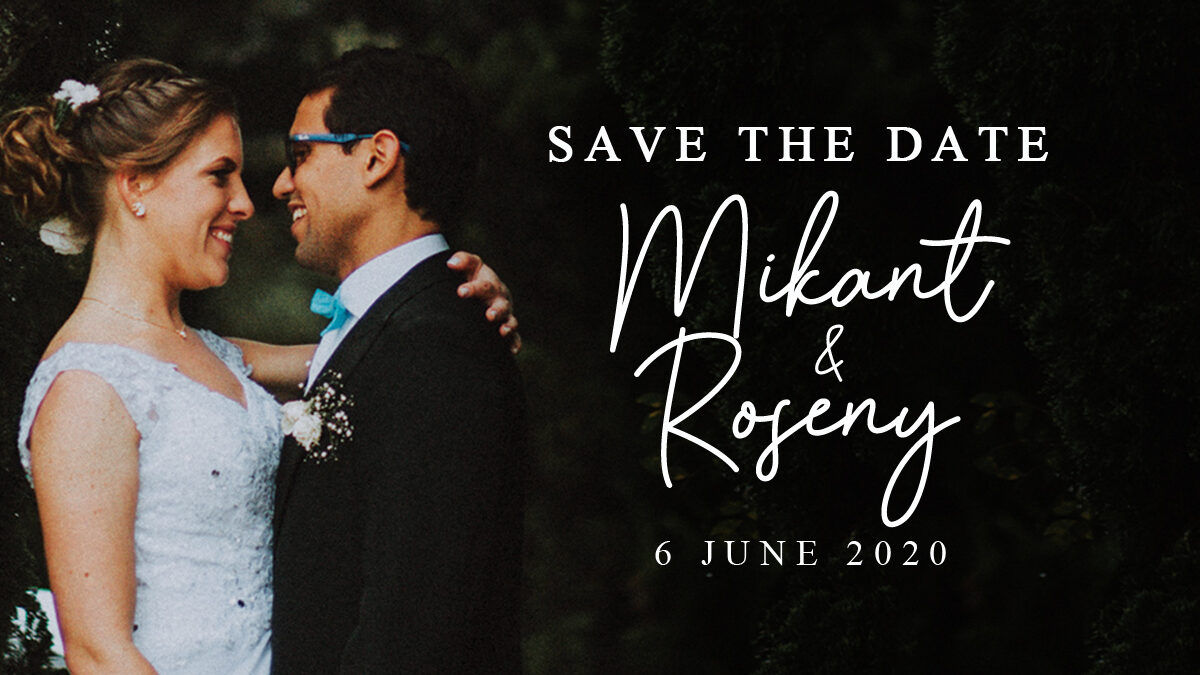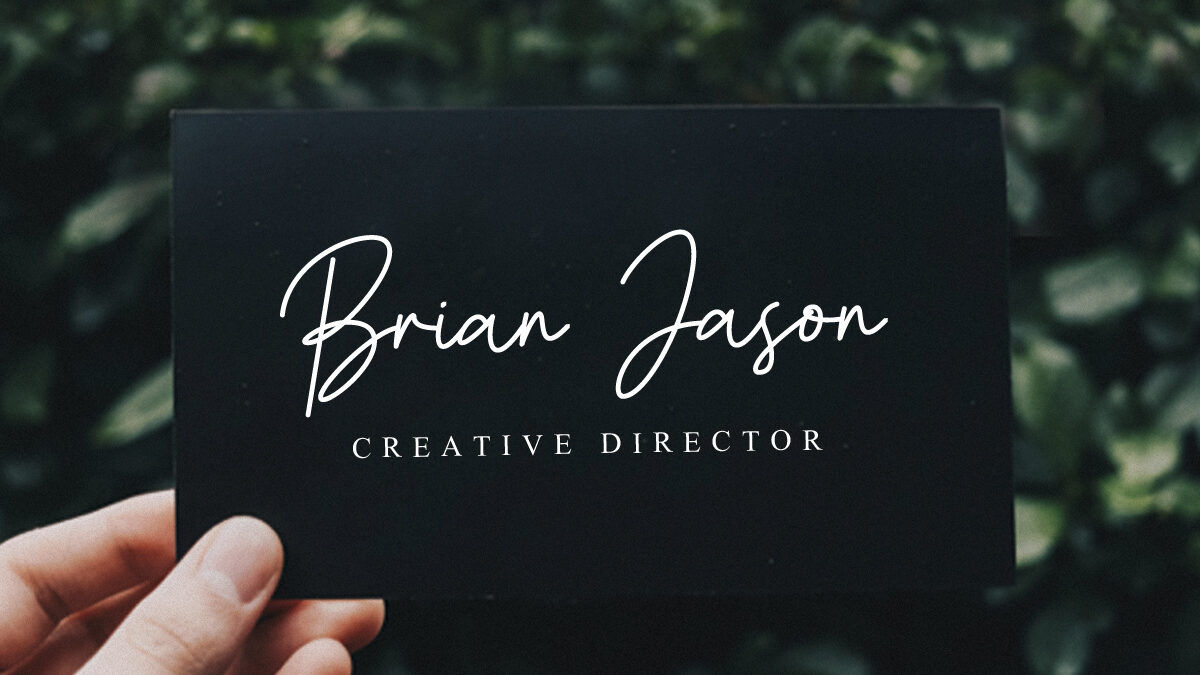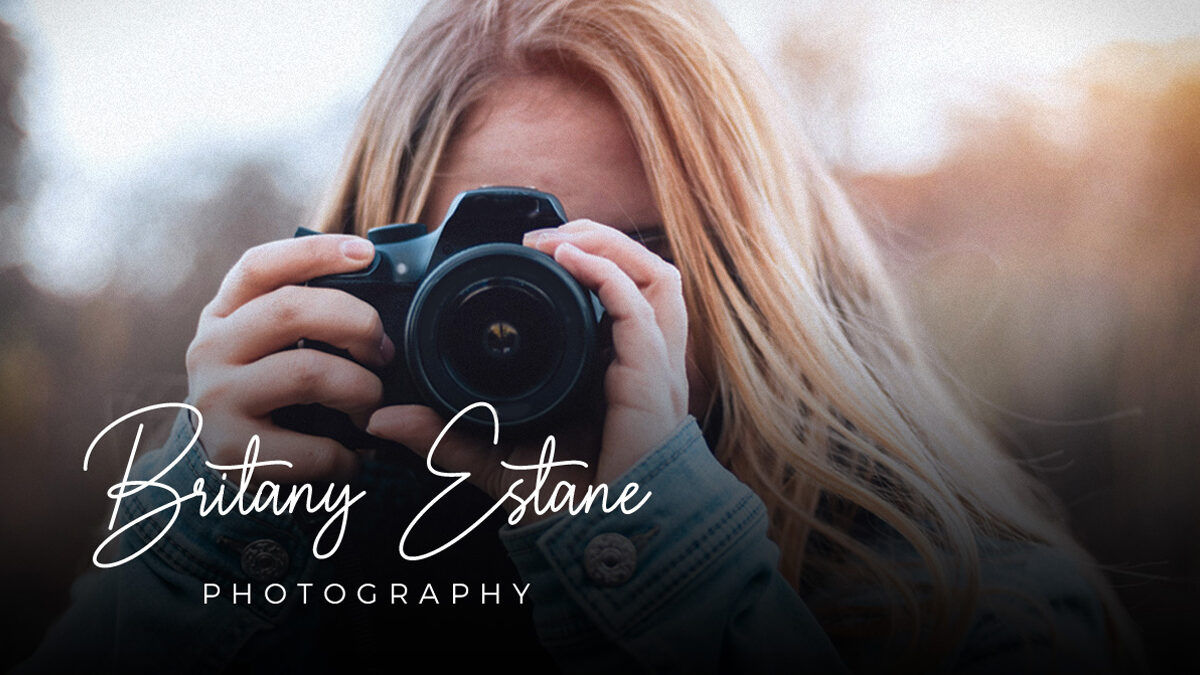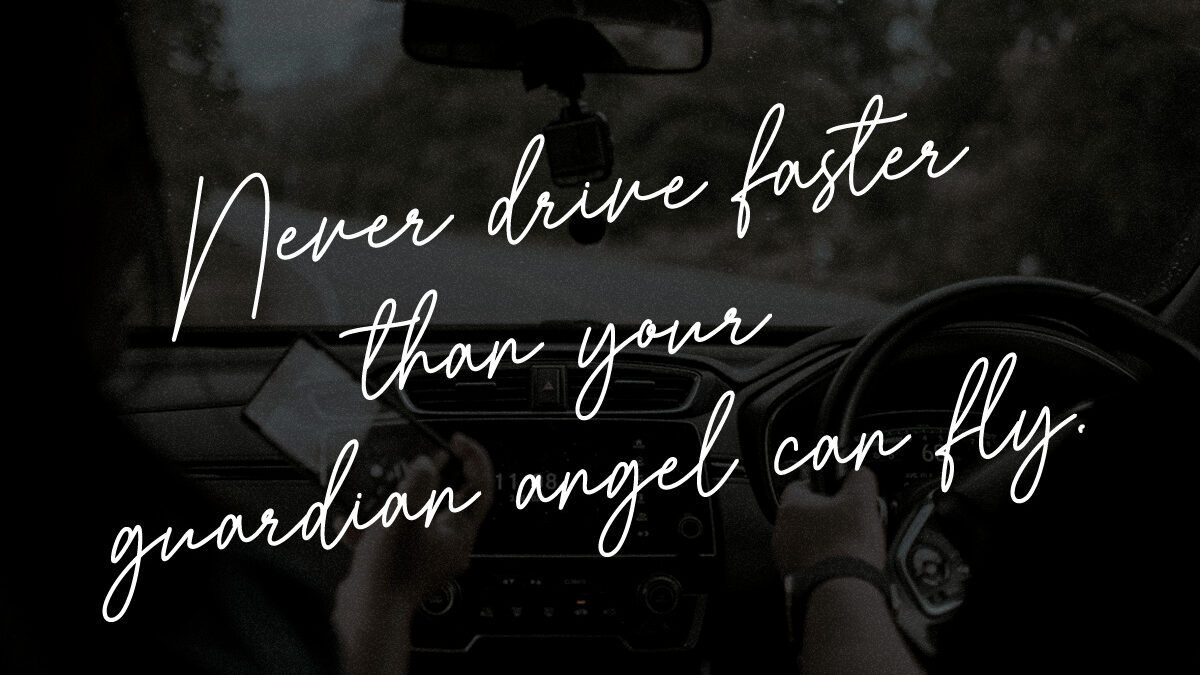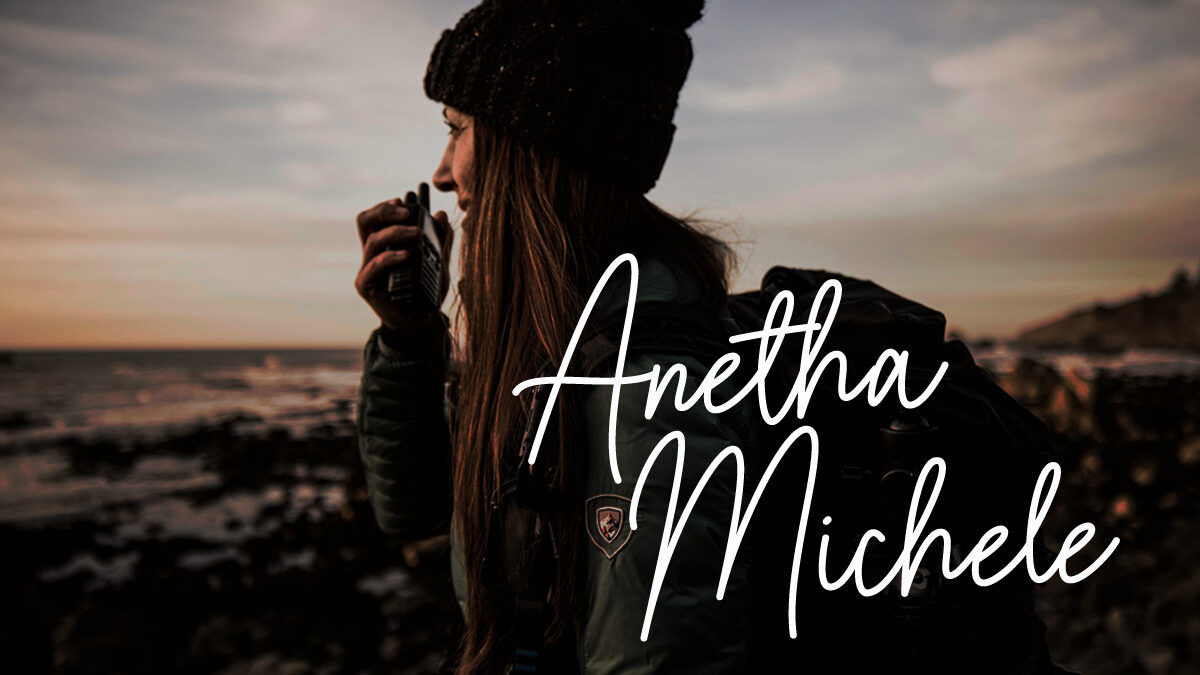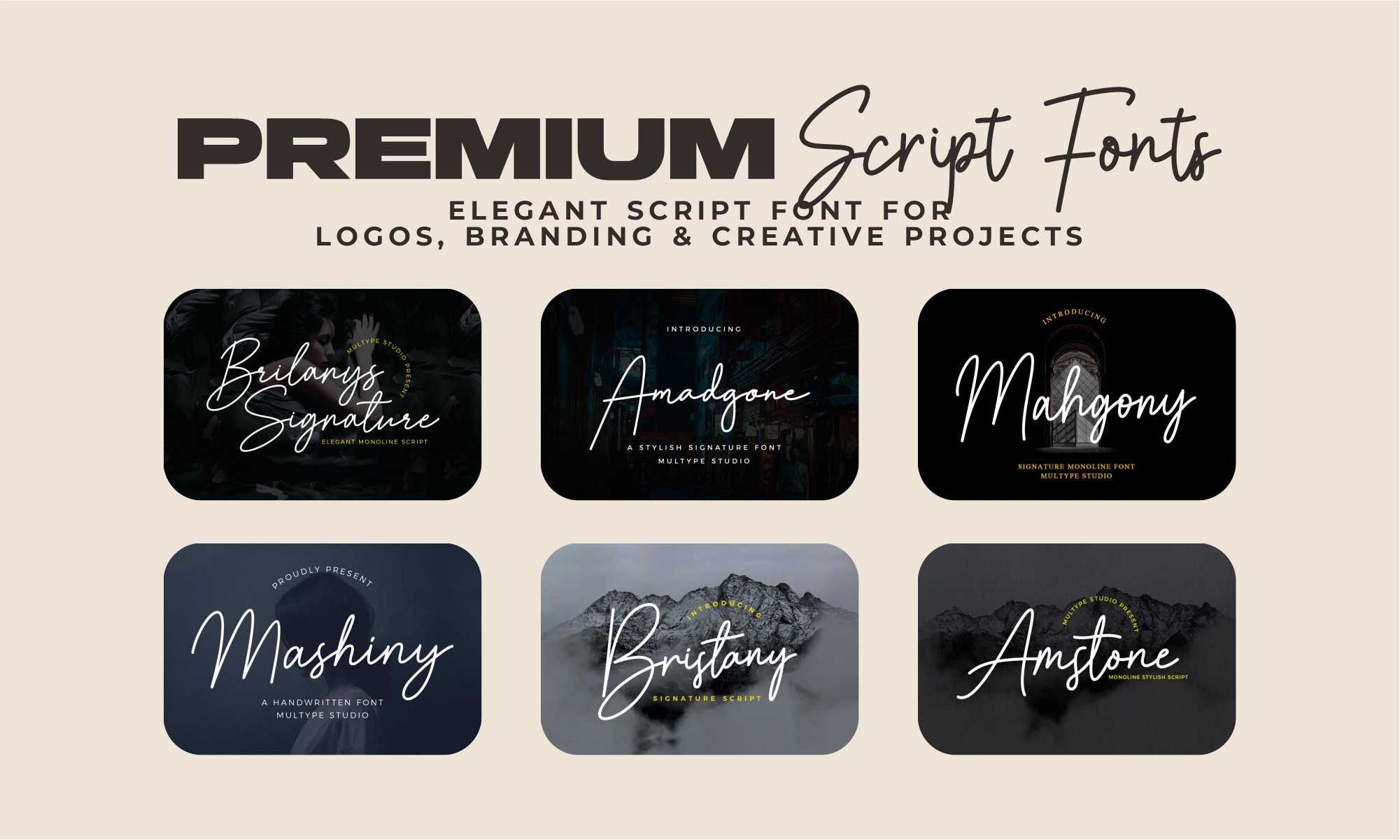
Best Script Fonts for Every Creative Project
Script fonts remain one of the most popular typography styles because they bring personality, elegance, and a natural handwritten feel to any design. Whether you’re creating a luxury logo, wedding invitation, product packaging, social media graphics, or branding materials, a well-crafted script font can instantly elevate the visual appeal.
At Multype Studio, our Script Font Collection features professionally designed typefaces that combine beauty, readability, and versatility. Each font is created to help designers, businesses, and creators produce memorable designs with confidence.
What Are Script Fonts?
Script fonts are typefaces inspired by handwriting and calligraphy. Unlike traditional serif or sans-serif fonts, script fonts feature flowing strokes, connected letters, and elegant curves that mimic natural writing.
Depending on the style, script fonts can look:
• Elegant
• Modern
• Casual
• Luxury
• Vintage
• Signature-style
• Brush lettering
• Calligraphic
Because of their expressive appearance, script fonts are commonly used to create emotional and premium branding experiences.
Why Choose Script Fonts?
A high-quality script font offers several advantages:
Elegant Appearance
Perfect for luxury branding, fashion, cosmetics, and premium products.
Natural Handwritten Feel
Adds authenticity that feels more personal than standard fonts.
Strong Brand Identity
Many successful brands use script typography to create memorable logos and packaging.
Highly Versatile
Suitable for both digital and print media.
Popular Uses for Script Fonts
Our customers commonly use script fonts for:
• Logo Design
• Business Branding
• Wedding Invitations
• Product Packaging
• Restaurant Branding
• Beauty & Cosmetic Brands
• Café Logos
• Social Media Posts
• YouTube Thumbnails
• Photography Watermarks
• Clothing Brands
• Merchandise
• Greeting Cards
• Signature Logos
• Book Covers
How to Choose the Right Script Font
Before selecting a script font, consider these factors:
Purpose
Luxury branding benefits from elegant signature fonts, while cafés and handmade businesses often suit casual handwritten styles.
Readability
Decorative fonts should still be easy to read, especially for logos and marketing materials.
Character Set
Choose fonts that include uppercase, lowercase, numerals, punctuation, multilingual support, ligatures, and stylistic alternates whenever possible.
Why Designers Choose Multype Studio Script Fonts
Every script font at Multype Studio is designed with attention to detail and practical usability.
Our fonts are ideal for:
• Professional logo design
• Commercial branding
• Advertising
• Packaging
• Editorial design
• Social media marketing
• Small businesses
• Creative agencies
Many fonts include premium OpenType features such as stylistic alternates and ligatures, allowing designers to create typography that feels natural and custom-made.
Explore Our Script Font Collection
Our growing Script Font collection includes styles such as:
• Signature Fonts
• Elegant Script Fonts
• Modern Handwritten Fonts
• Luxury Fonts
• Wedding Fonts
• Calligraphy Fonts
• Fashion Fonts
• Branding Fonts
• Stylish Logo Fonts